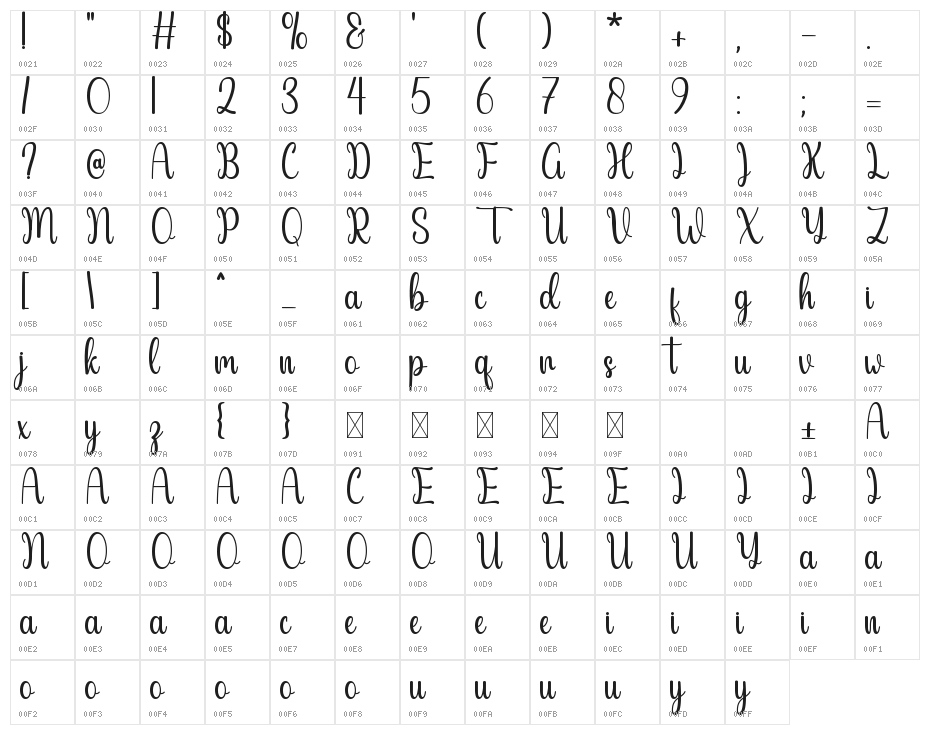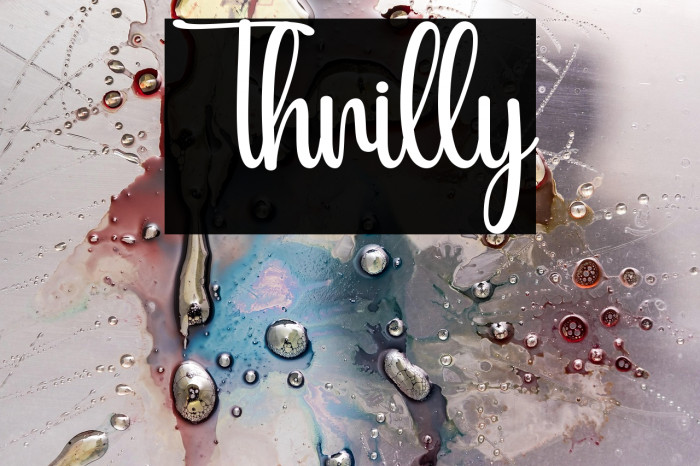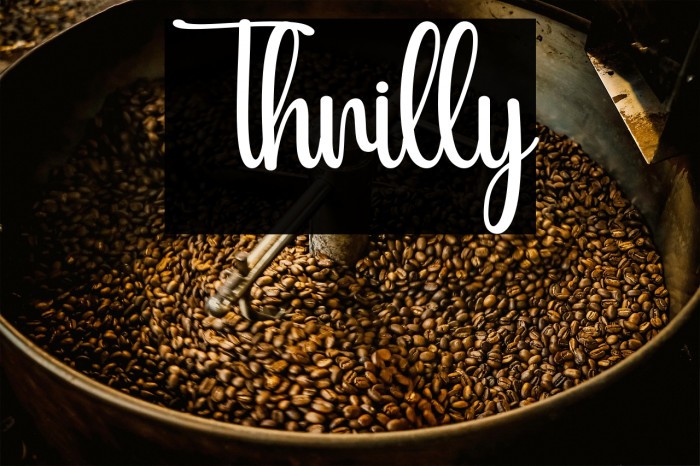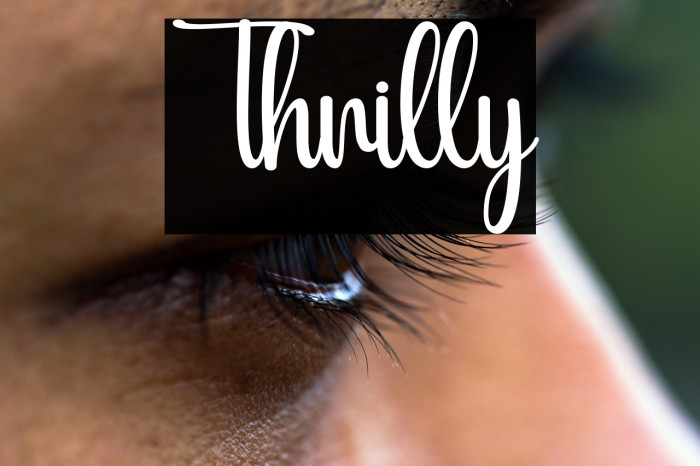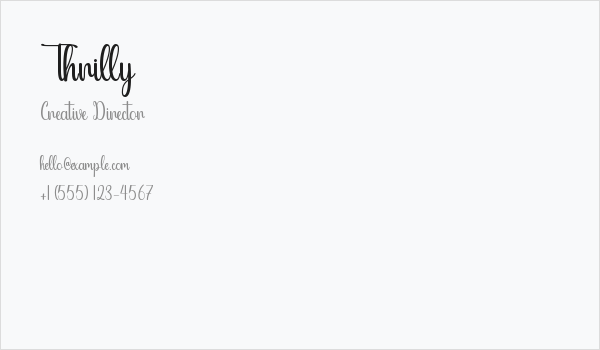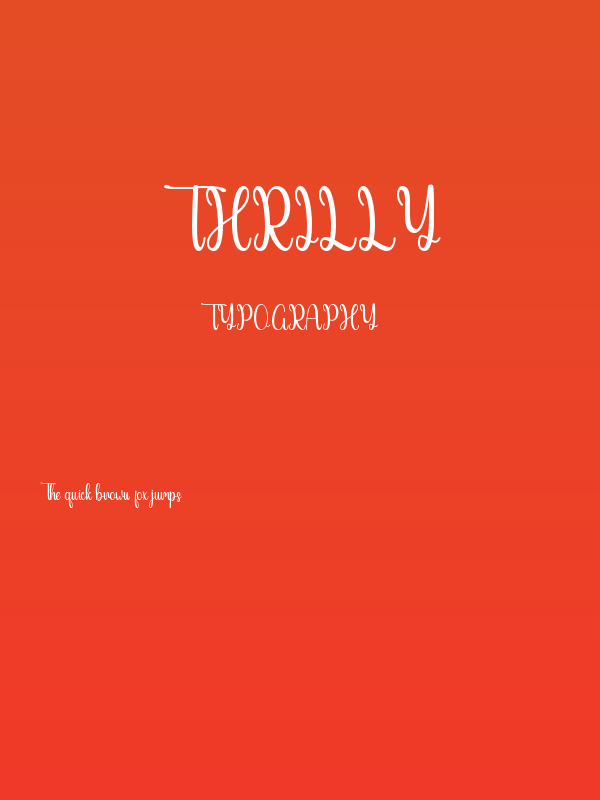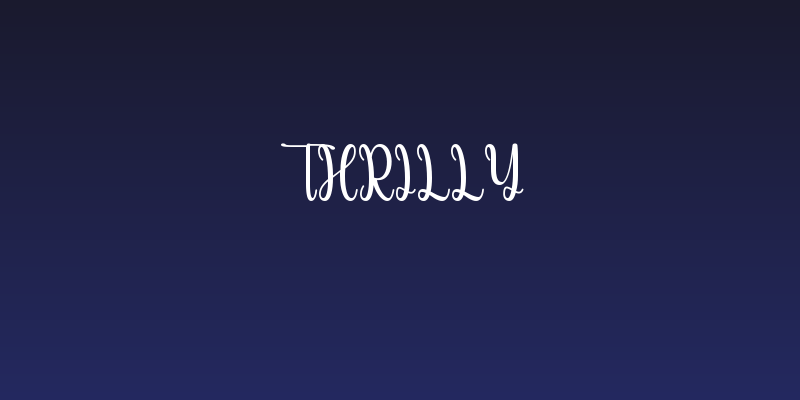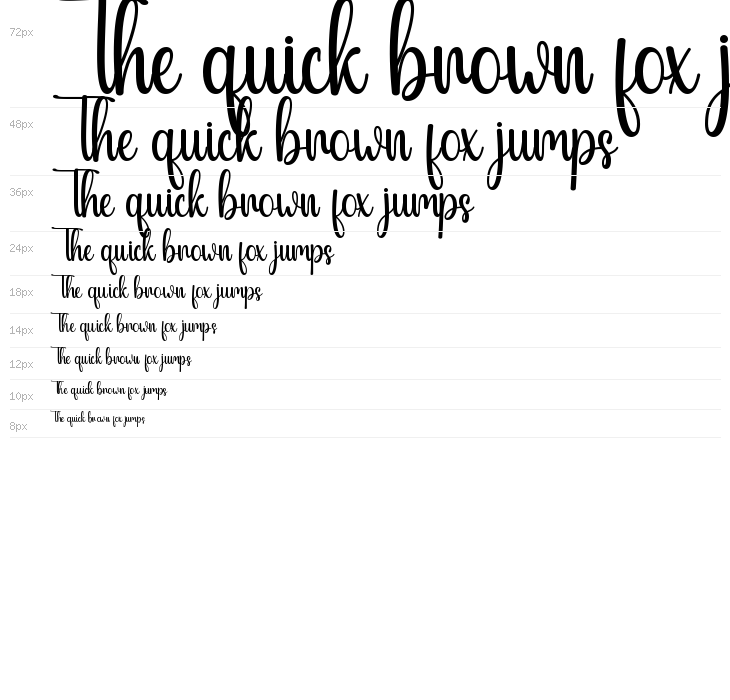
Thrilly Font
Thrilly Description
| Overall Style | Casual and whimsical |
| Use Case | Logos, invitations, casual text. |
| Proposed Projects | Greeting cards, invitations, playful branding. |